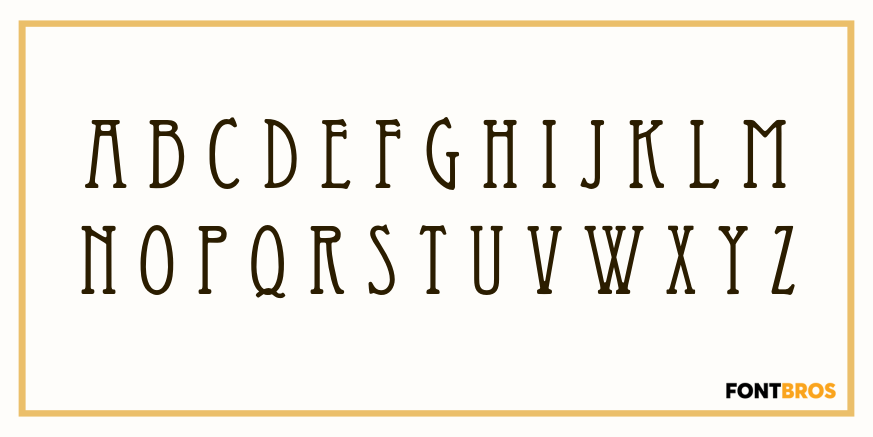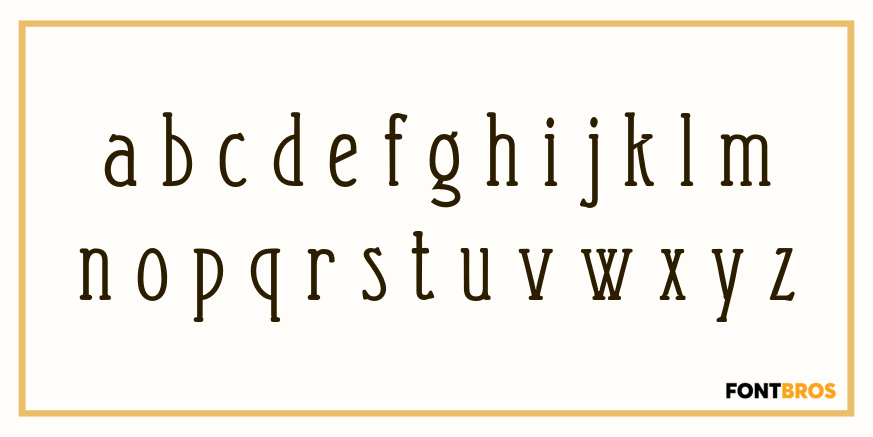
Eccentric
Font Family by Solotype
Here's another old-timer that needed a lowercase, so we drew one. Originally issued as a caps-only type by The American Type Founders Company about 1898, this font found its way into Craftsman period design.
It was the inspiration for Galadriel, a dry transfer sheet alphabet.